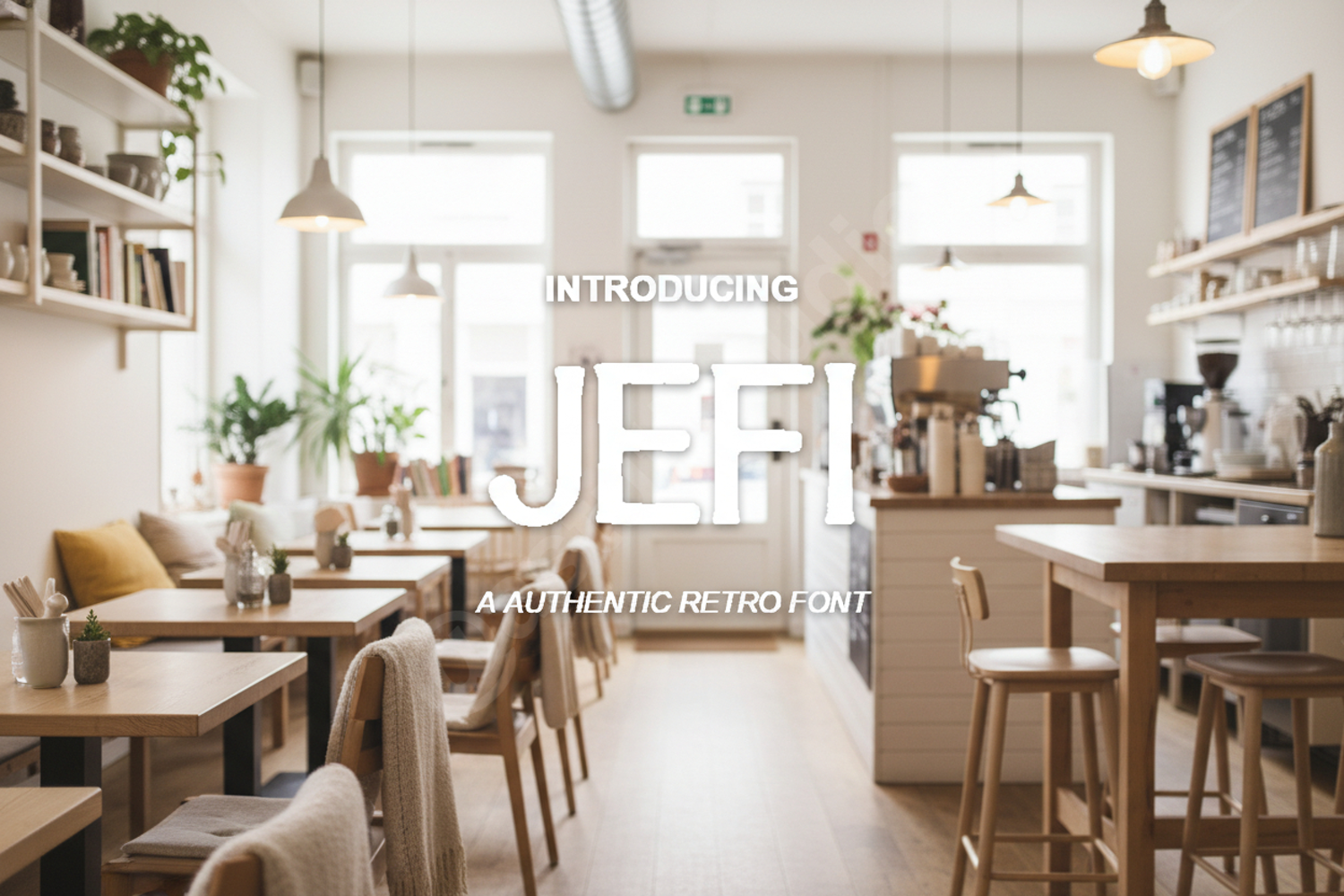
Jefi - Modern Minimalist Sans Serif Typeface
Jefi
Elevate your creative projects with Jefi, a premium sans serif typeface that embodies modern minimalism and professional elegance. Carefully crafted with clean lines and balanced proportions, Jefi offers a versatile solution for designers seeking a sophisticated look that remains highly legible across all mediums.
- Professional Branding and Identity Systems
- High-end Logo Design
- Editorial Layouts and Magazine Spreads
- Modern Social Media Graphics
- Minimalist Packaging Design
- Clean Website Headers and UI Elements
Whether you are working on a luxury brand or a tech startup, Jefi provides the high-quality finish your work deserves.